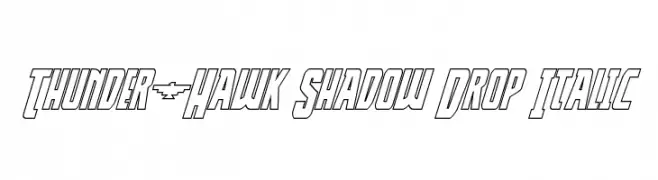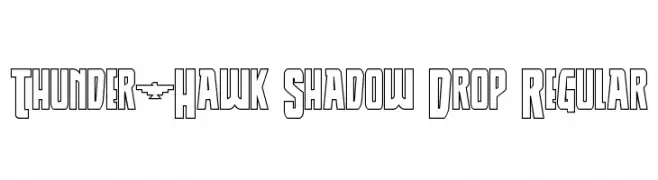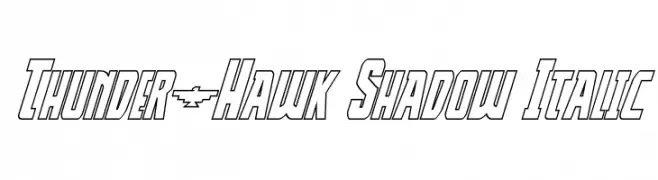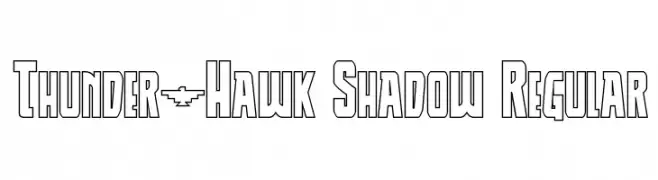
A bold, angular font with a shadow drop effect for a three-dimensional look.
A bold, geometric font with an outlined shadow effect, perfect for impactful designs.
A bold, italicized font with a shadow drop effect, exuding a dynamic and futuristic style.
A bold, italic font with a dynamic shadow effect and angular design.